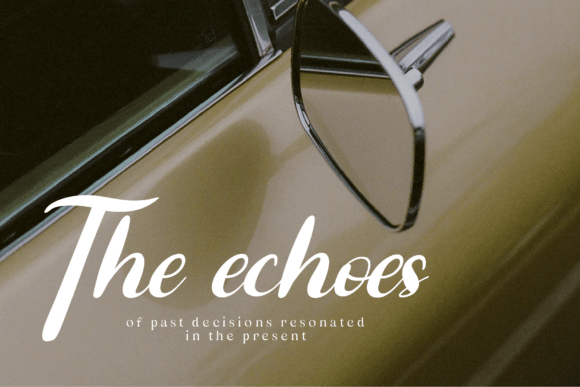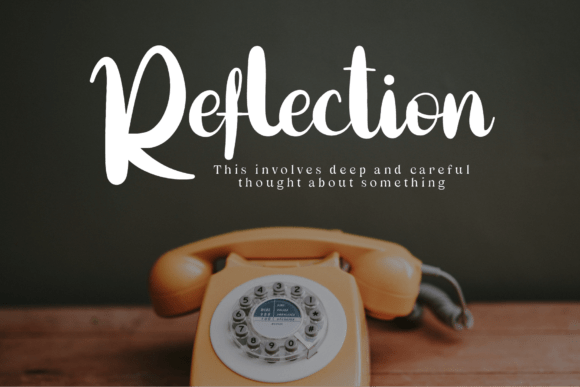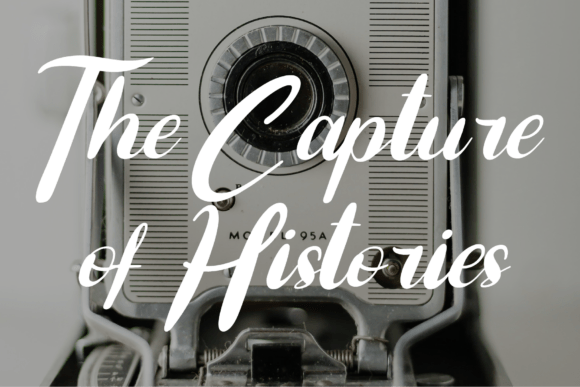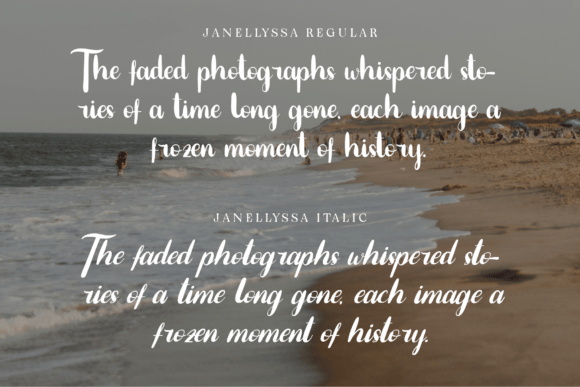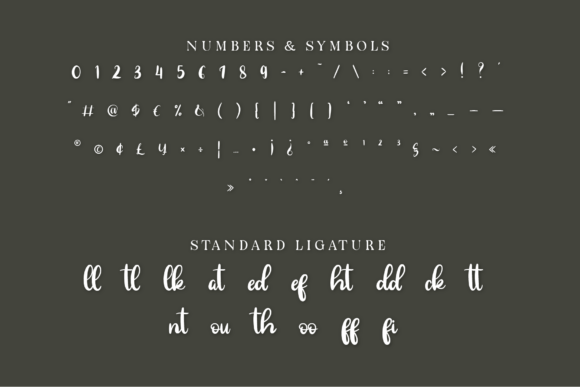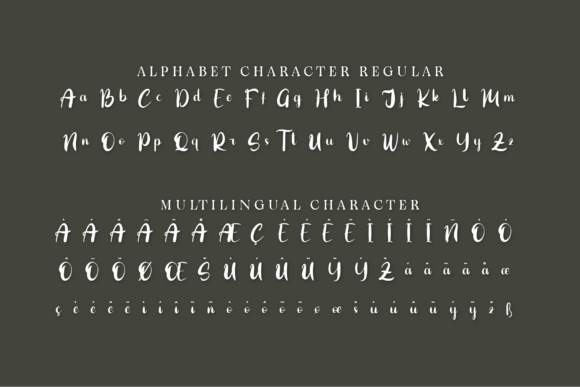
Introduction to Janellyssa Font
Unleash the beauty of handwritten artistry with Janellyssa, a bold script font that combines graceful curves with confident strokes.
Designed to be expressive yet sophisticated, this typeface is perfect for branding, invitations, packaging, social media, and editorial designs With its smooth, flowing letterforms and dynamic presence, Janellyssa strikes the perfect balance between boldness and femininity.
Key Features of Janellyssa Font
Why Choose Janellyssa Font?
Janellyssa Font offers exceptional quality and versatility, making it a valuable addition to your design toolkit. Whether you’re creating for personal projects or commercial use, Janellyssa Font delivers professional results.